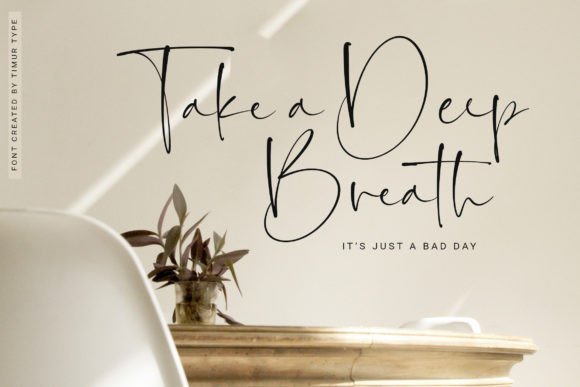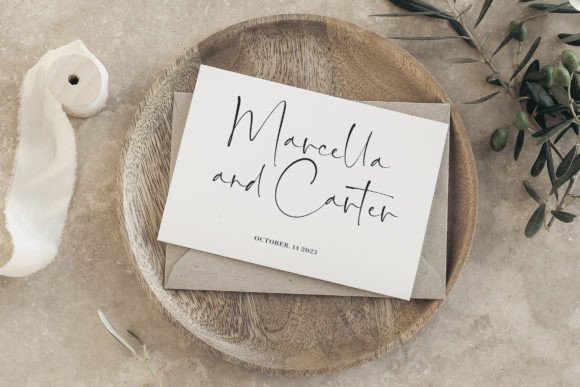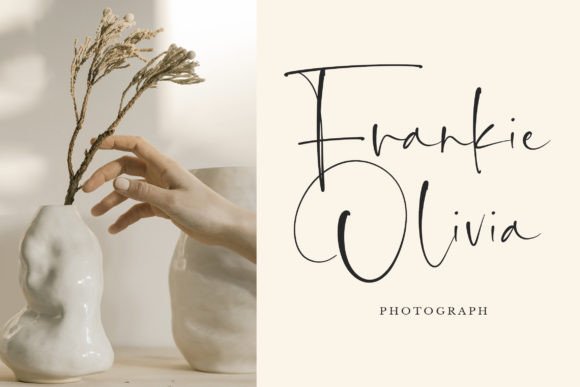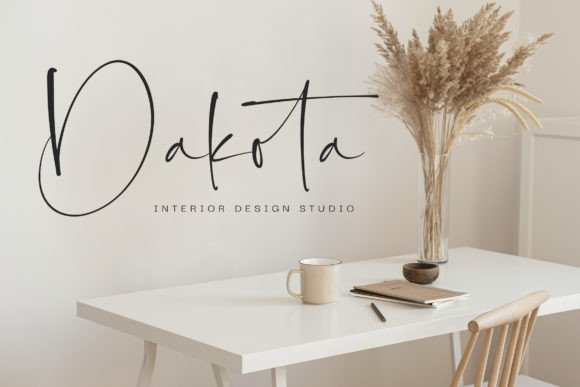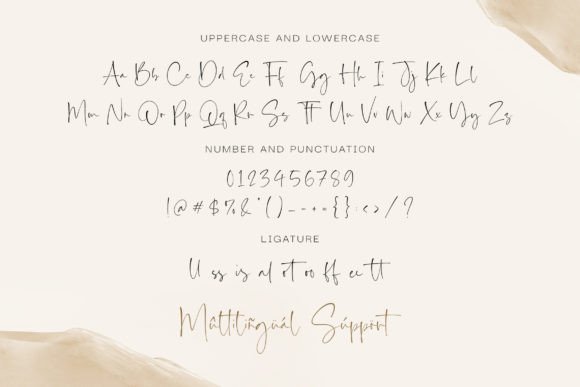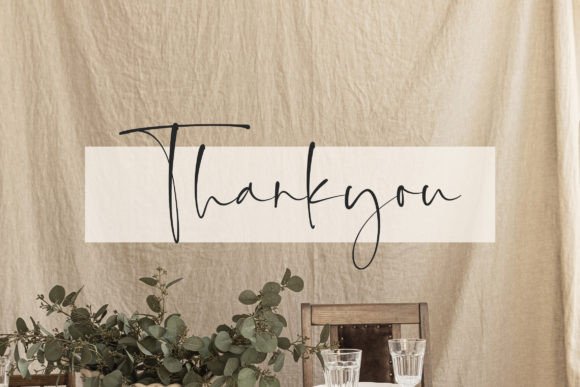
Introduction to Saint Timothy Font
Saint Timothy feels equally charming and elegant.
It looks stunning on wedding invitations, thank you cards, quotes, greeting cards, logos, business cards, and every other design which needs a handwritten touch .
Key Features of Saint Timothy Font
Why Choose Saint Timothy Font?